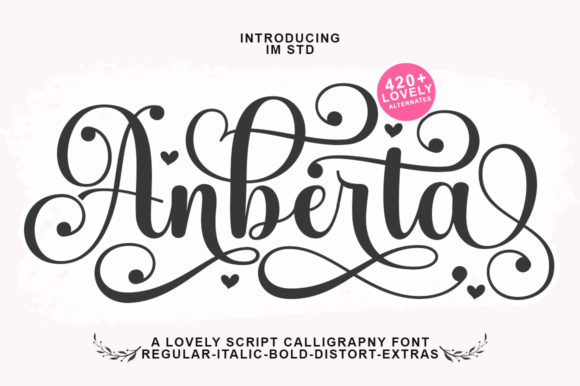
The Designer’s Delight: Anberta Font
I’ll never forget the time I was working on a branding project for a luxury wedding planner. I had the logo concept nailed, but I was struggling to find the perfect font to complement it. That’s when I stumbled upon Anberta, a gorgeous script font that added a touch of elegance and sophistication to my design. If you’re a designer, crafter, or creative hobbyist looking for a font that will elevate your projects, you’re in the right place!
An Honest Review of Anberta Font
So, what makes Anberta so special? Let’s dive into the good stuff! 😊
• ✨ Stunning Ligatures: Anberta boasts beautiful ligatures that will take your designs to the next level. From elegant swashes to clever connections, this font has it all!
• ✅ PUA Encoded: With PUA encoding, you can access all the amazing glyphs and ligatures with ease. No more tedious font hacking or searching for the perfect character!
• 💫 Versatile: Anberta is perfect for a wide range of design projects, from wedding invitations and branding to packaging and digital graphics.
Now, let’s talk about a few quirks to keep in mind:
• 🤔 Kerning: As with any script font, you may need to adjust the kerning to get the perfect spacing. But trust me, it’s worth it!
• ⚠️ Glyph Overload: With so many amazing glyphs to choose from, it’s easy to get overwhelmed. Take some time to explore the font and get familiar with its features.
The Story Behind Anberta Font
According to the font’s creator, Anberta was inspired by the elegant calligraphy of 18th-century European manuscripts. The designer wanted to create a font that would evoke the same sense of luxury and sophistication, while still being versatile and easy to use. And so, Anberta was born! 🎉
PUA (Private Use Area) encoding allows font creators to add custom glyphs and characters to a font, making it easier for users to access these special features. In the case of Anberta, PUA encoding means you can easily access the font’s beautiful ligatures and swashes.
While Anberta is a beautiful font, it’s best suited for headlines, titles, and short blocks of text. For body text, you may want to choose a font with better readability and legibility.